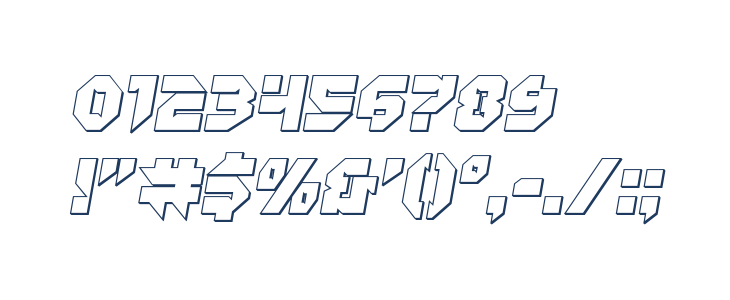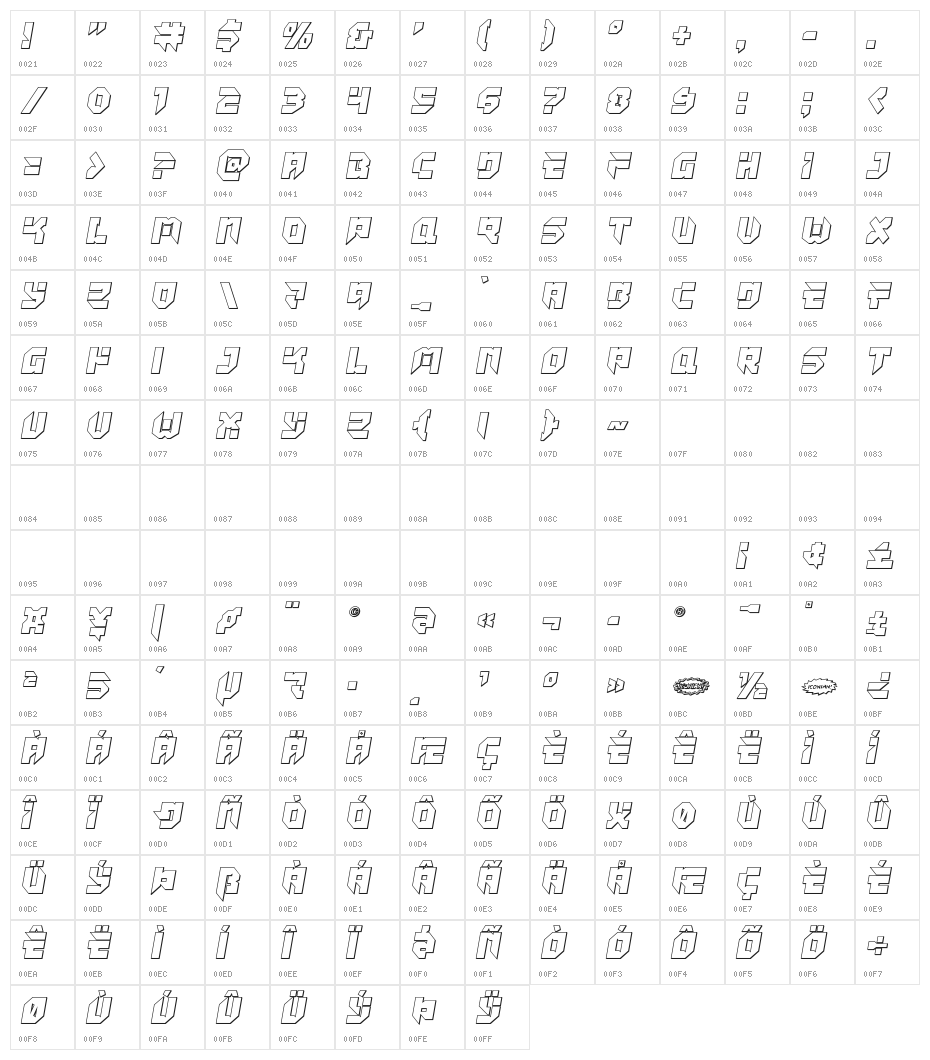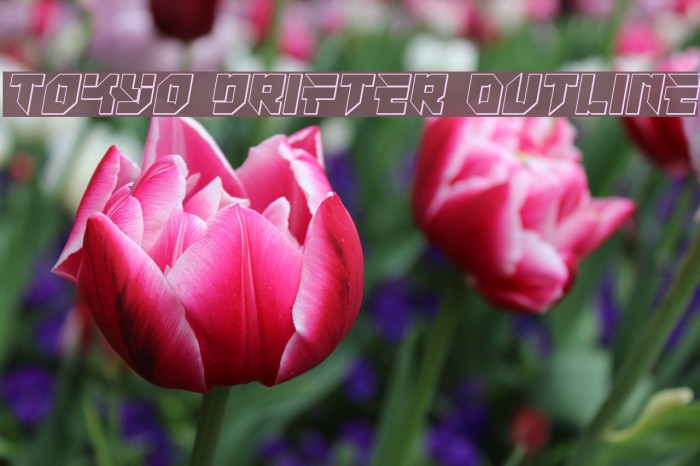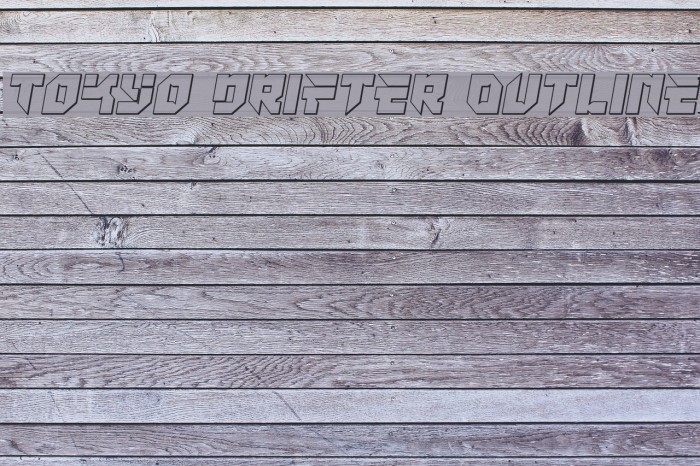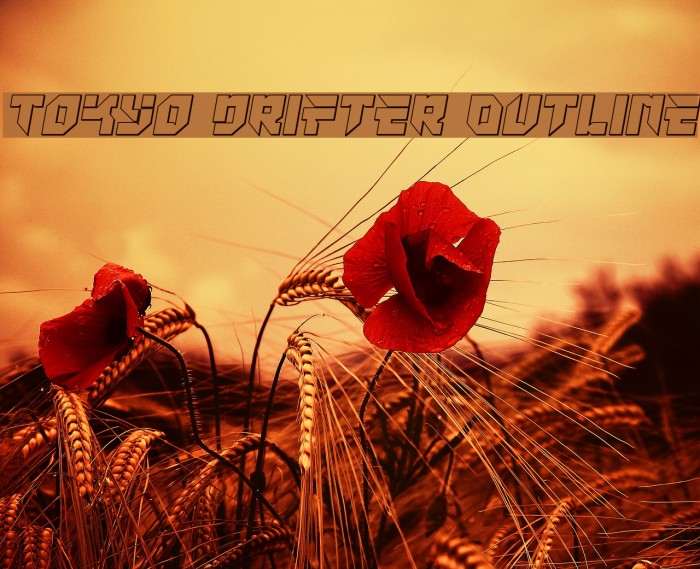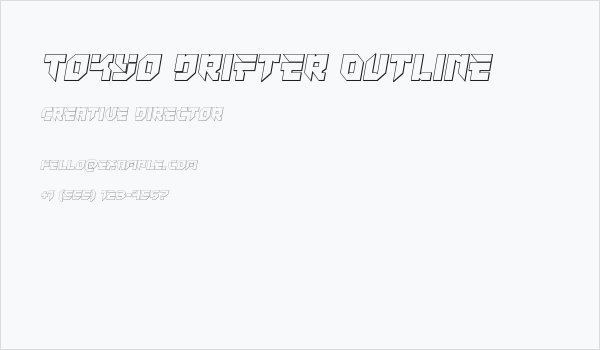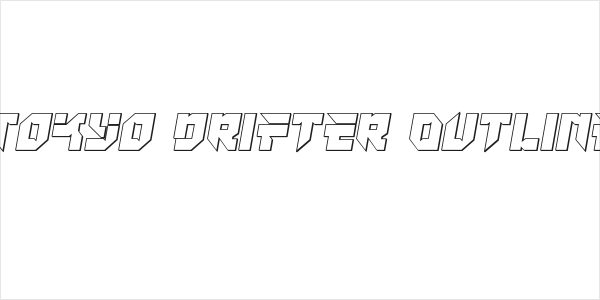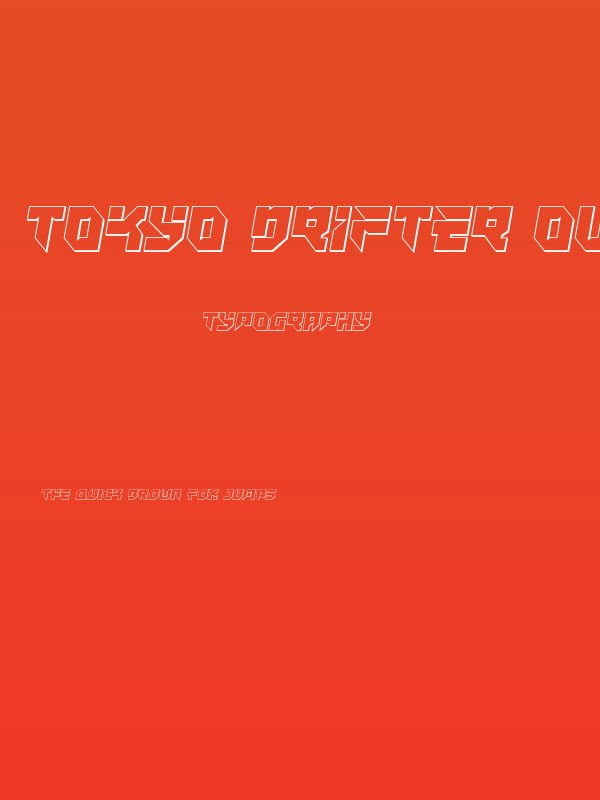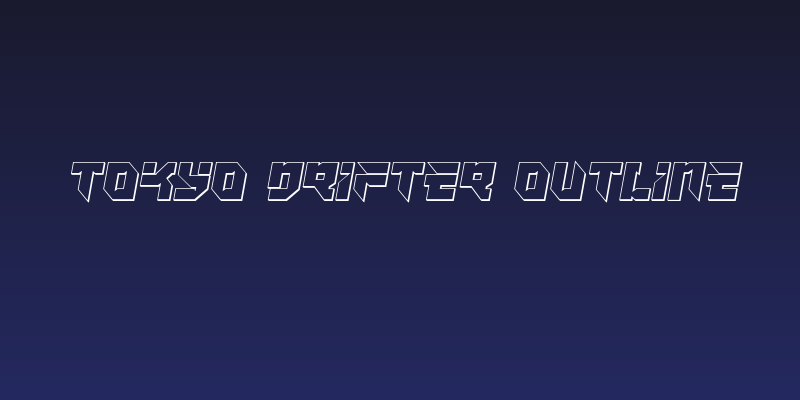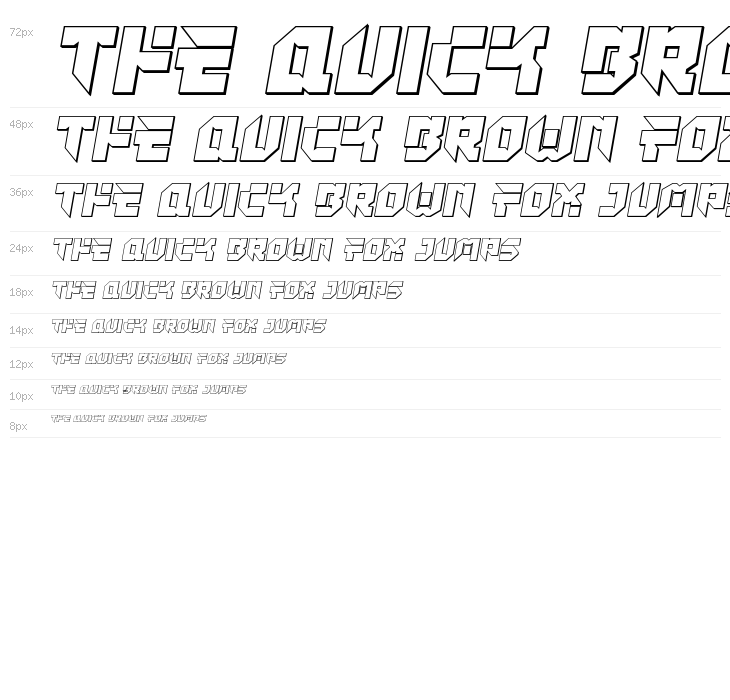
Tokyo Drifter Outline Font
Tokyo Drifter Outline Description
This font features a bold, geometric outline style that gives it a futuristic and edgy appearance. The characters are constructed with sharp angles and clean lines, creating a sense of movement and dynamism. The outline design adds a layer of depth, making the letters appear almost three-dimensional. This font is highly stylized, with a unique aesthetic that stands out, making it ideal for eye-catching designs. The uniformity in the character shapes ensures consistency across different uses, while the angular forms provide a modern and tech-inspired look.
| Proposed Projects | Ideal for projects requiring a modern, tech-inspired look such as video game titles, sci-fi movie posters, or futuristic branding. |